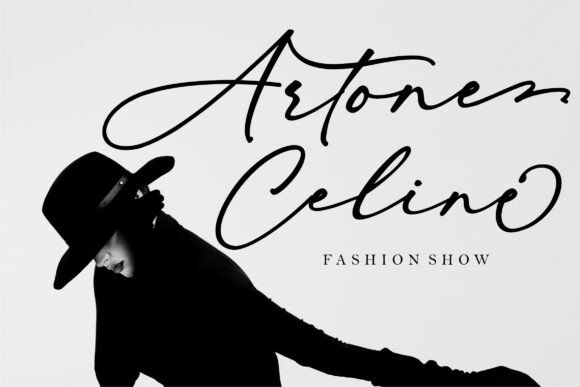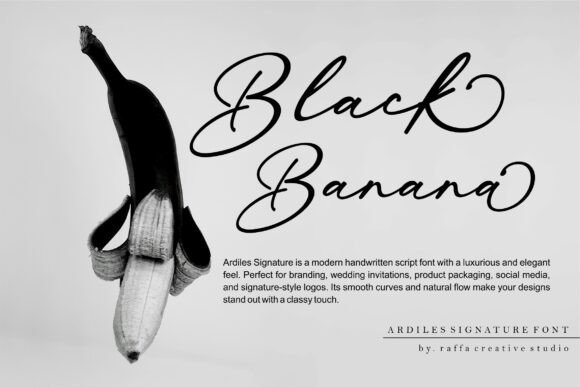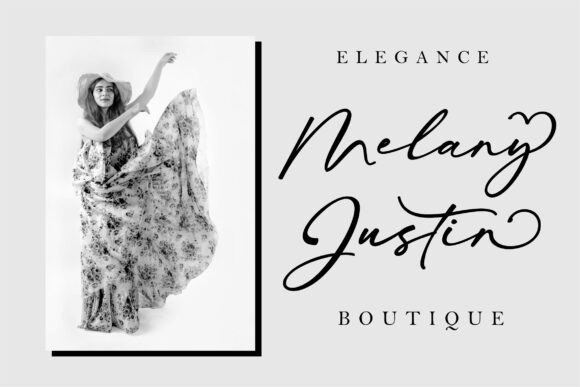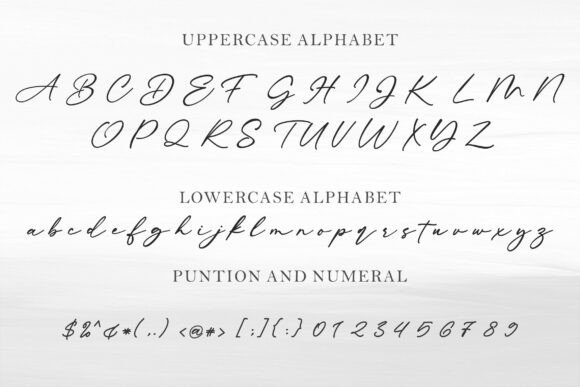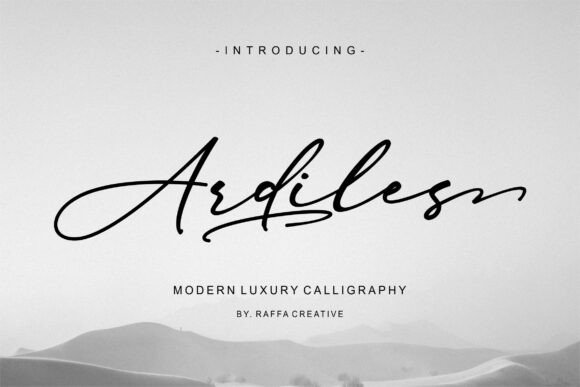
The Ardiles Font: Elevating Designs with Luxurious Elegance
I still remember the design project that led me to discover the Ardiles font. I was working on a wedding invitation suite, and my client wanted a sophisticated, high-end feel that would make their special day truly unforgettable. As I scoured font libraries and marketplaces, I stumbled upon Ardiles – a modern handwritten script font that instantly caught my eye. Its smooth curves, natural flow, and luxurious elegance made it the perfect fit for the project. And, as I soon discovered, it’s an incredibly versatile font that can elevate a wide range of designs.
An Honest Review of Ardiles Font
What I Love About Ardiles ✨
- 💫 Luxurious and elegant feel that’s perfect for high-end branding and designs
- ✅ Smooth curves and natural flow that make text easy to read
- 🎨 Highly versatile and adaptable to various design styles and industries
- 🖋️ Beautifully crafted to add a touch of sophistication to any project
While Ardiles is an exceptional font, there are a few minor quirks to be aware of:
- 🤔 Some users may find the font’s elegance and sophistication limiting for very casual or playful designs
- ⚠️ As with any script font, it’s essential to use it at larger sizes (18pt+) to ensure optimal readability
Exploring OpenType Features and Glyphs 🔍
One of the standout features of Ardiles is its support for OpenType features, glyphs, and stylistic alternates. These features allow you to customize your text and add unique flourishes to your designs. Some of the OpenType features you can expect to find in Ardiles include:
- Ligatures: Combine letters for a more elegant, connected look
- Stylistic alternates: Swap out letters for alternative forms to add visual interest
- Glyphs: Access additional characters, such as ornaments and swashes, to enhance your text
The Story Behind Ardiles: Designer Inspiration 📚
Ardiles was crafted with the goal of creating a luxurious, elegant font that would bring a touch of sophistication to any design. Inspired by the flowing curves and natural beauty of handwritten scripts, the designer aimed to create a font that would be both versatile and refined. Whether you’re working on a wedding invitation, product packaging, or social media graphics, Ardiles is designed to help you elevate your designs and make a lasting impression.
Q: What type of designs is Ardiles best suited for?
A: Ardiles is perfect for designs that require a luxurious, elegant feel, such as branding, wedding invitations, product packaging, social media graphics, and signature-style logos.
Q: Is Ardiles a difficult font to read?
A: No, Ardiles is designed to be highly legible, even at smaller sizes. However, as with any script font, it’s recommended to use it at larger sizes (18pt+) for optimal readability.